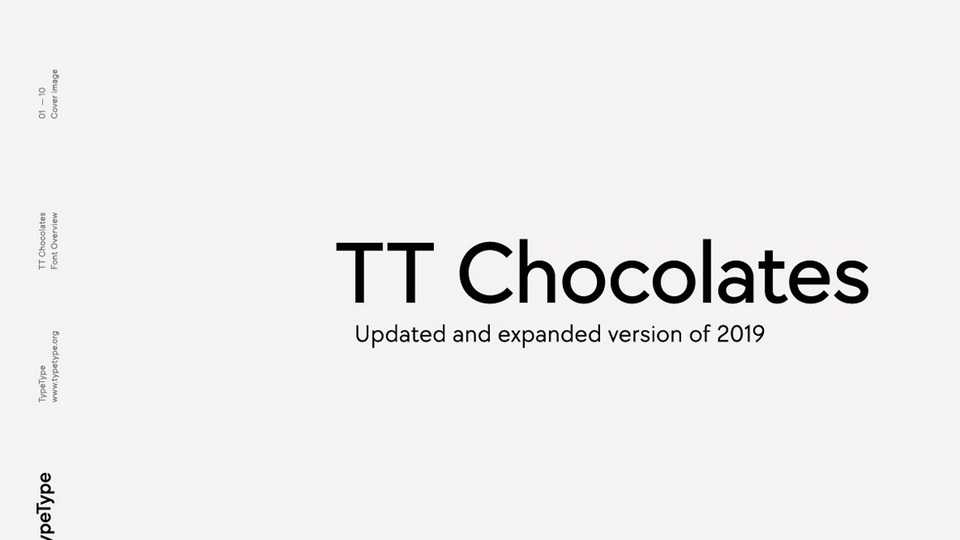
Download TT Chocolates font, a versatile geometric sans serif typeface. TT Chocolates has become a sturdy text sans serif with a wide palette of characters, dense typesetting, and very balanced proportions.